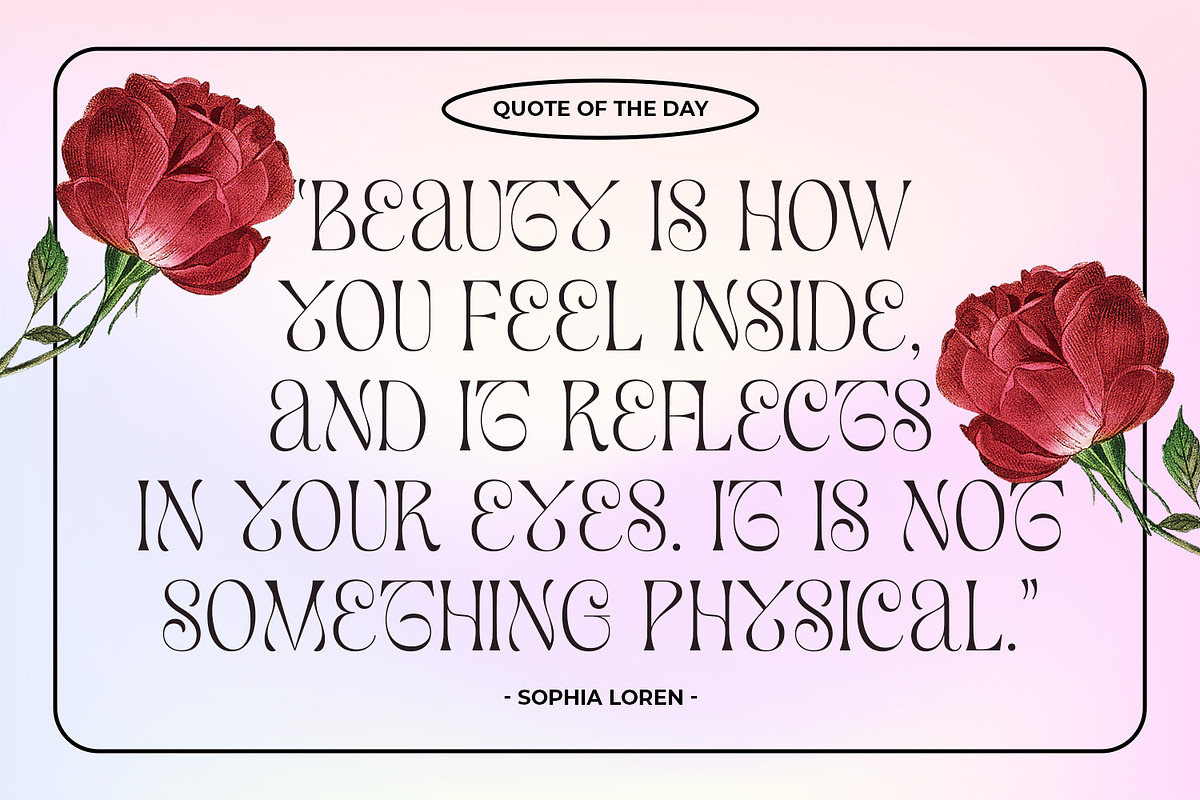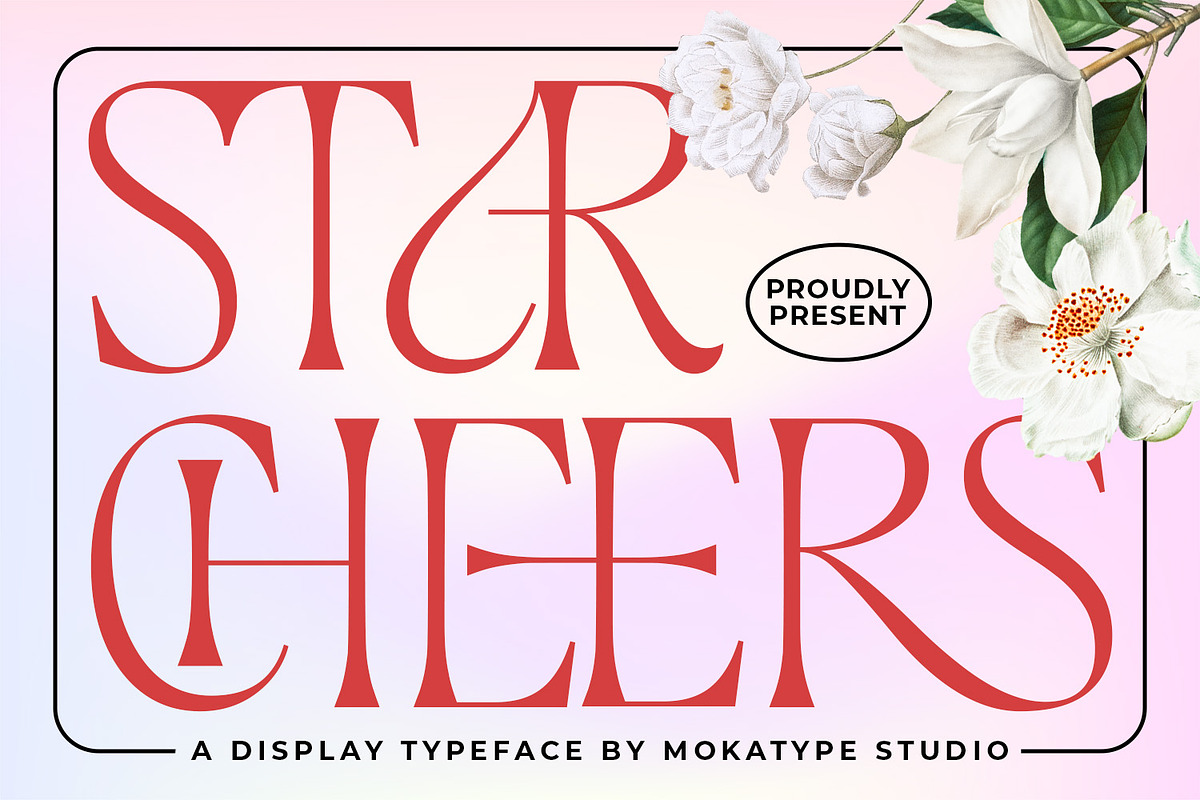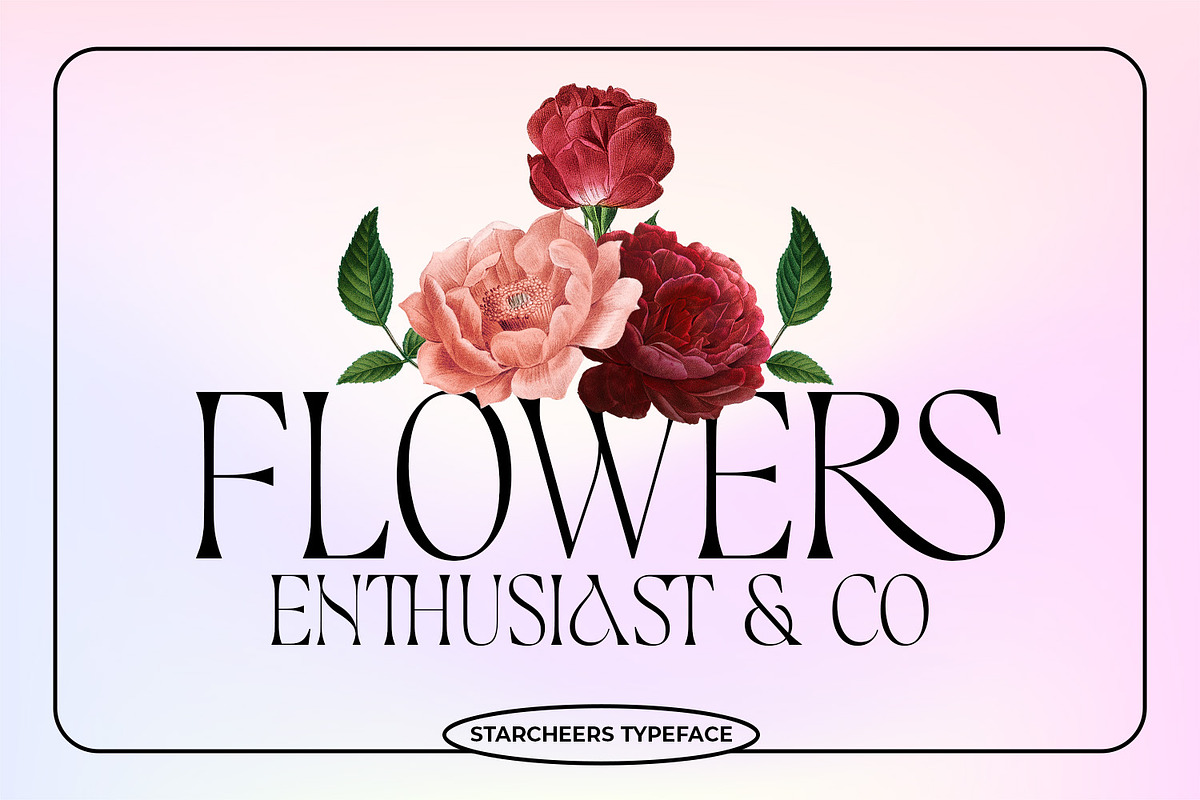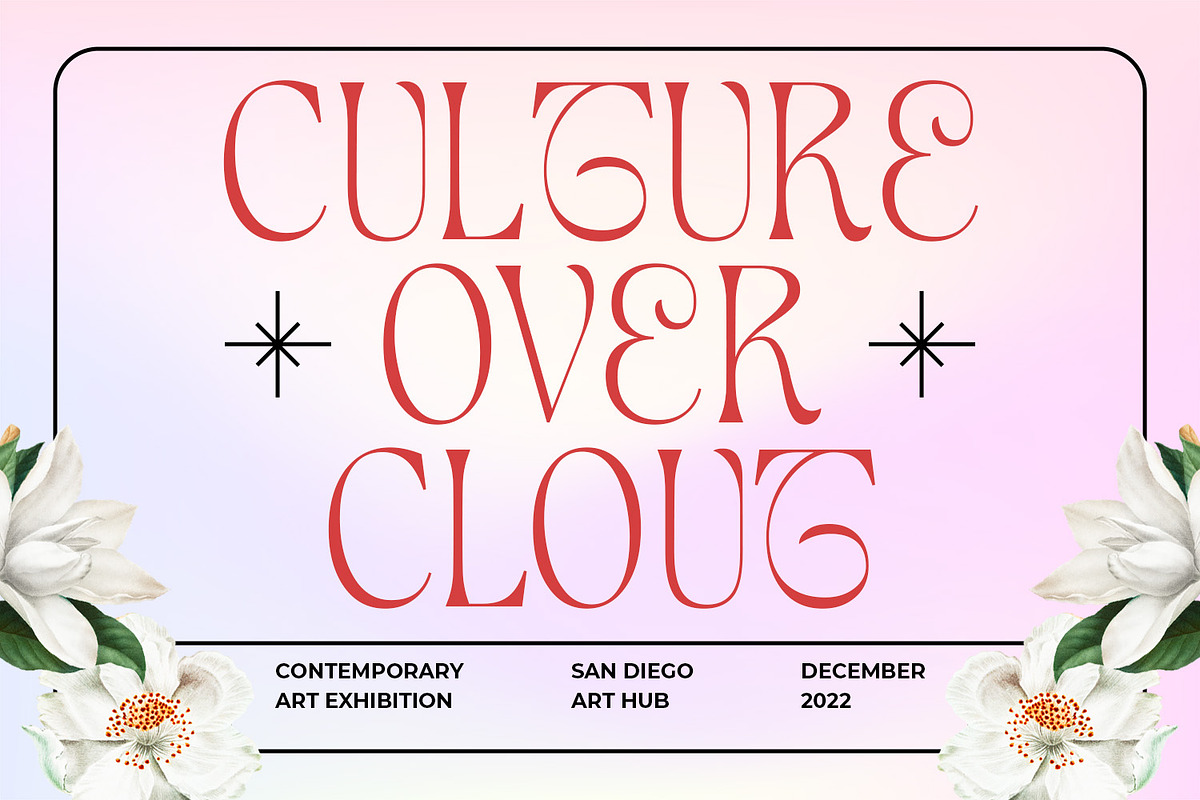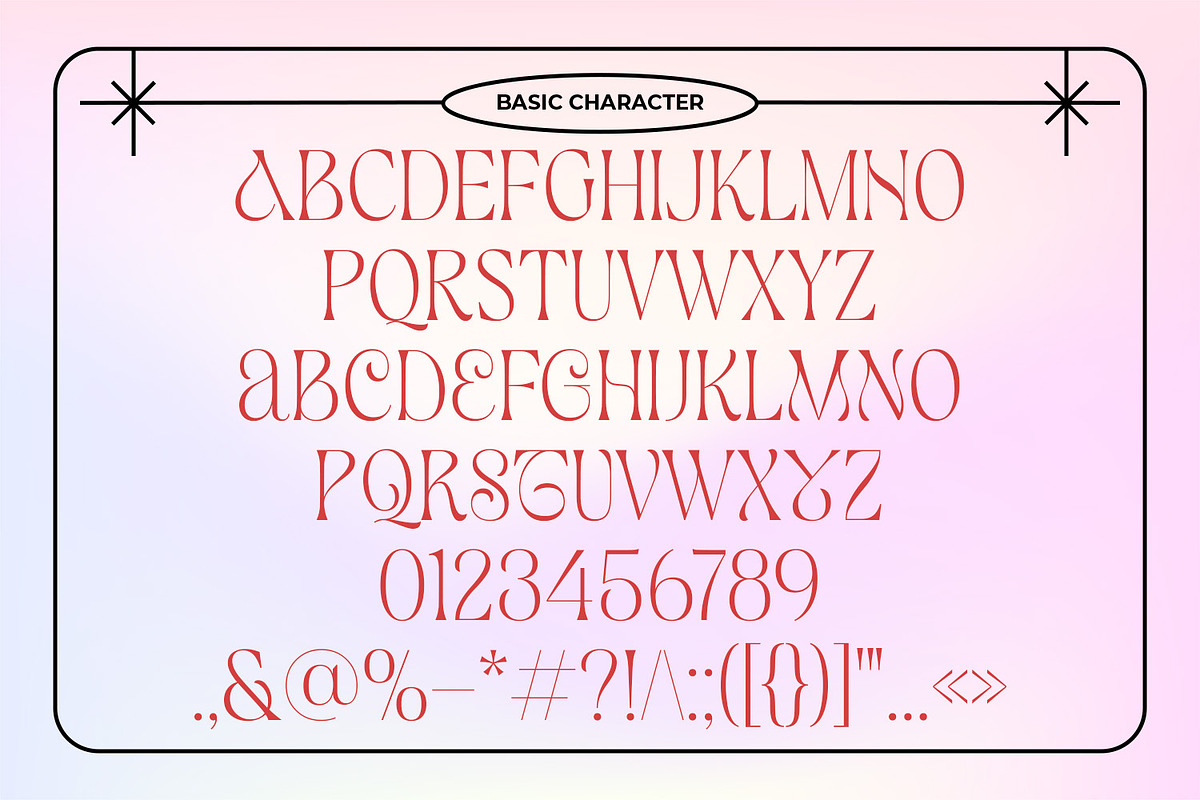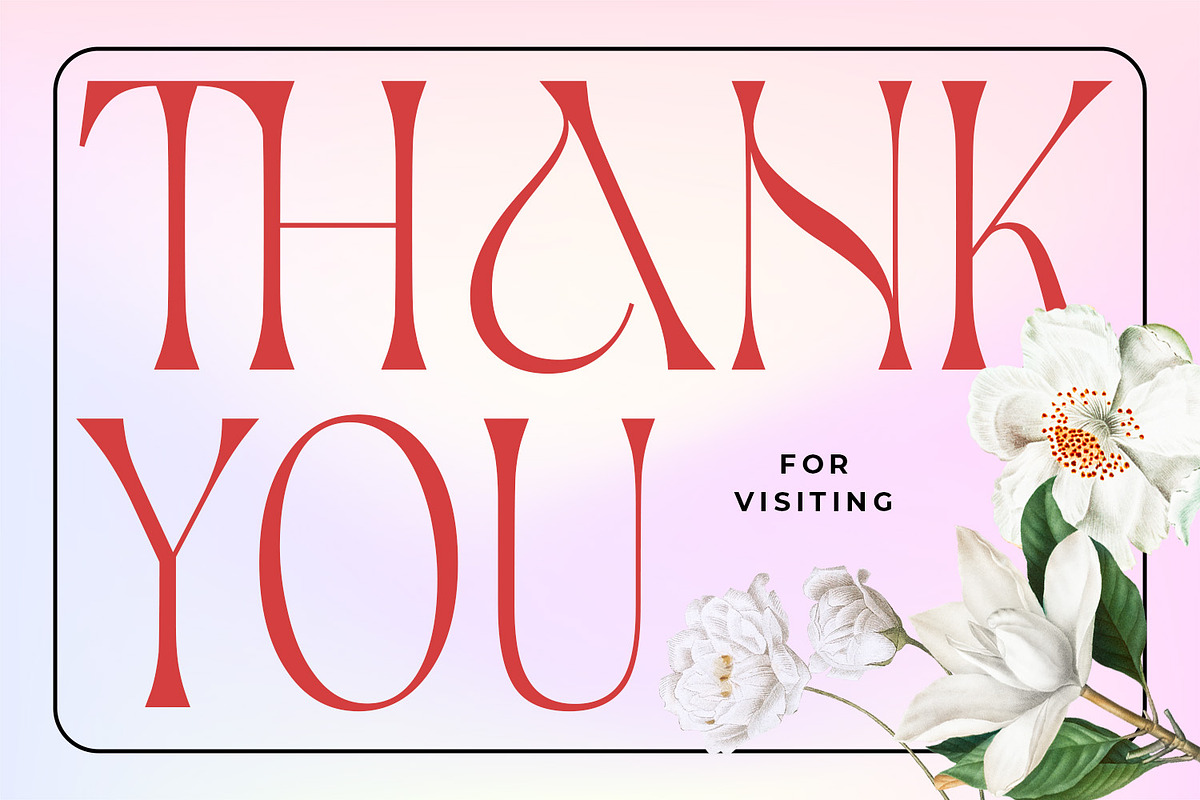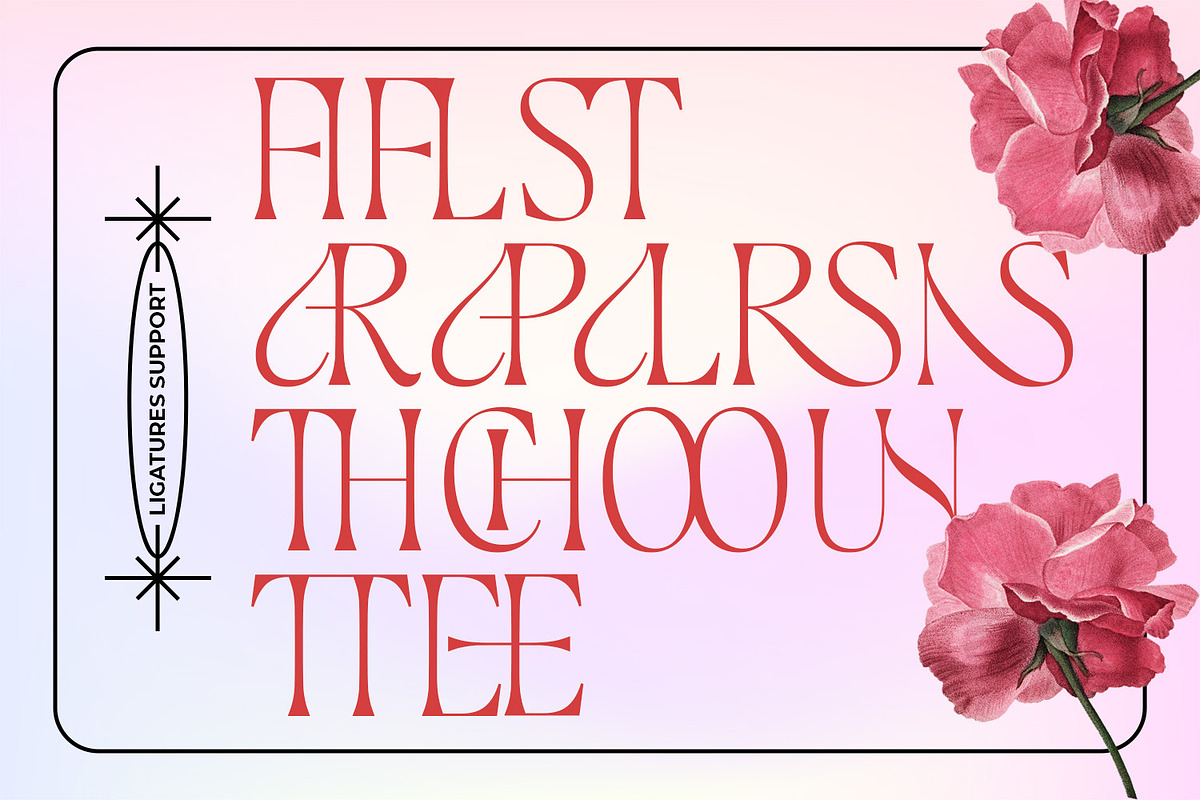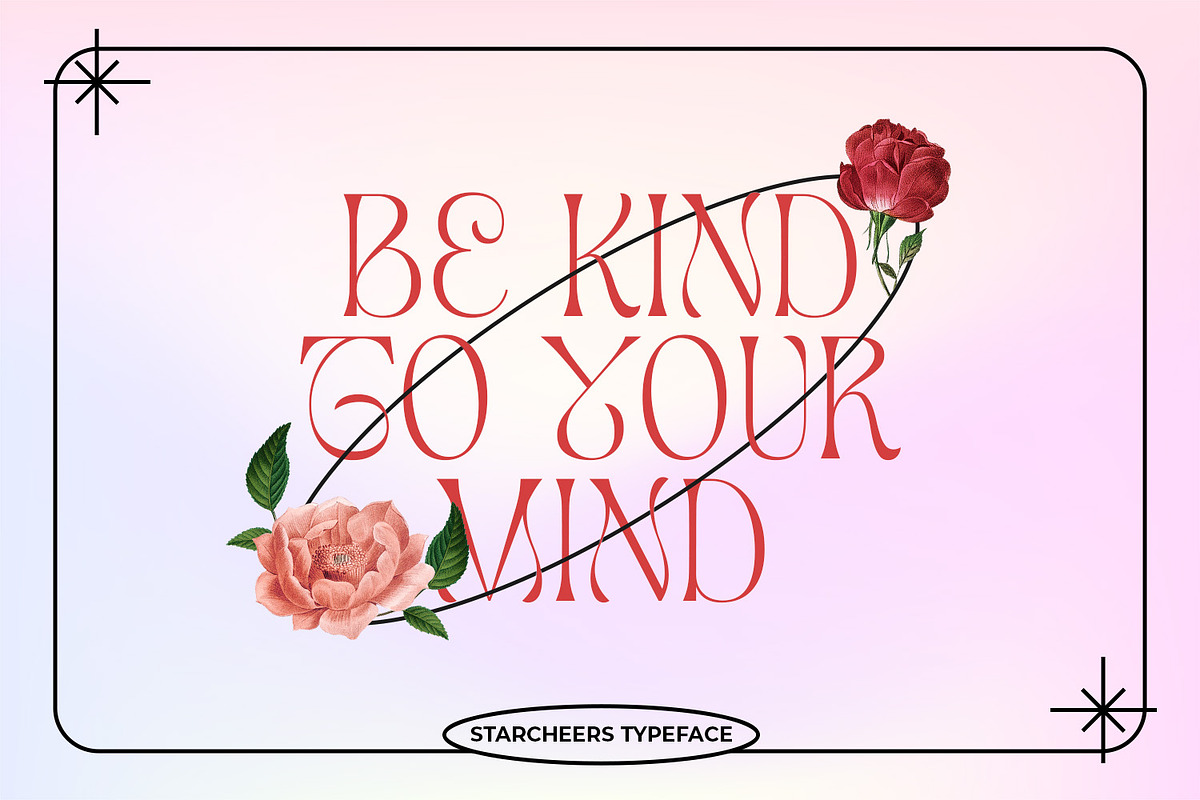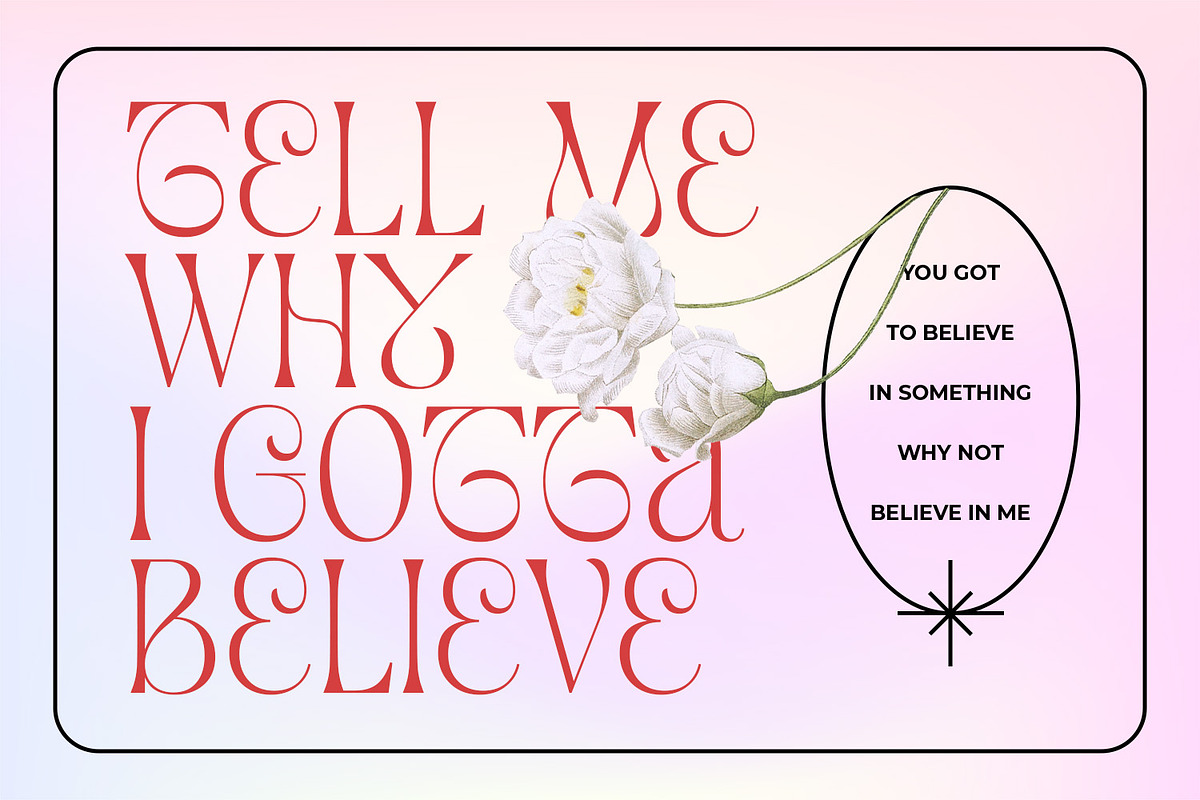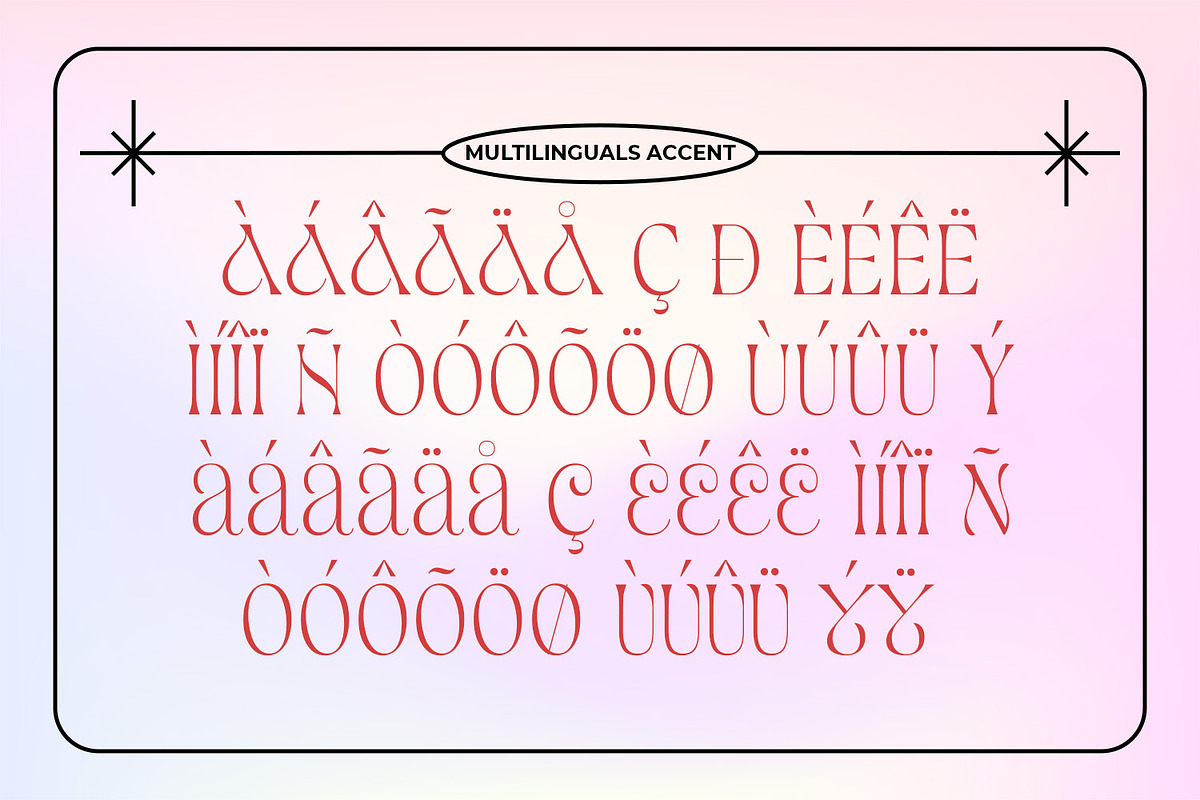
Starcheers - Unique Display
Starcheers is a unique display serif font with a beautiful character. This font building with smoothly connected ligatures and versatile pairing between lowercase and uppercase and it makes this font more unique and beautiful, looks elegant and stylish, it really perfect for headlines, typography, Poster, magazines, brochures, packaging, websites, and much more for your design needs, making your designs look like Luxurious nuances. What's Included :